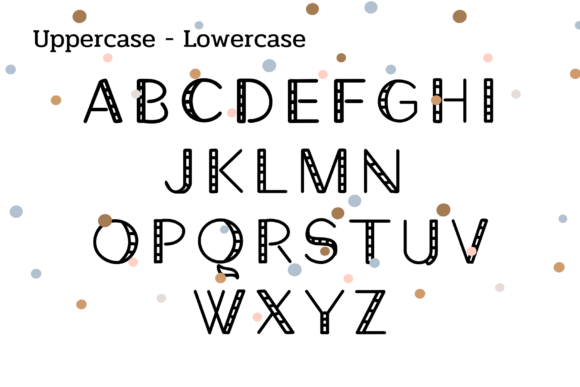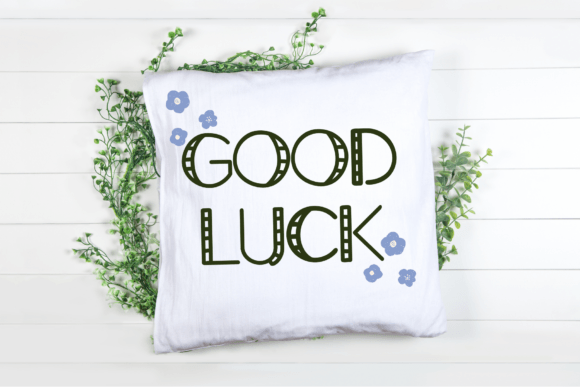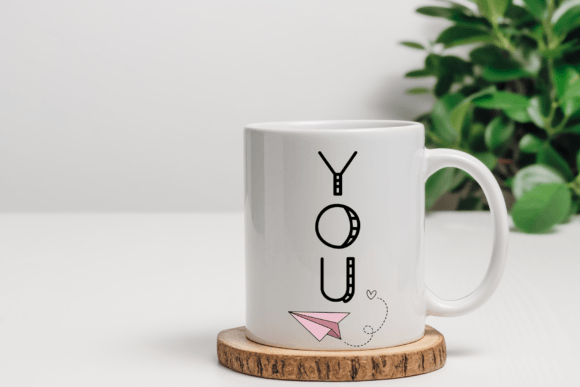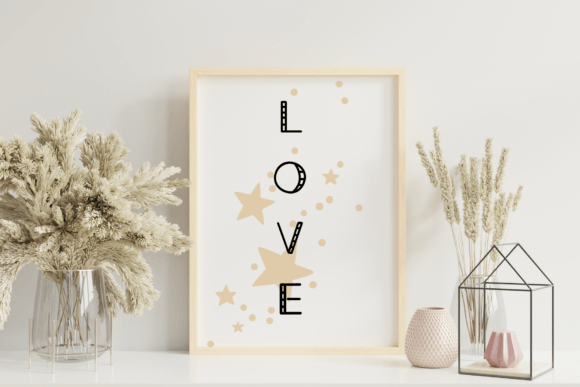
Greeting Font: Add a Warm and Welcoming Touch to Your Designs
Greeting is a playful and friendly display font that has been making waves in the design world. This charming font is perfect for invitations, cards, and any design that needs a warm, welcoming touch. In this article, we’ll dive into the world of Greeting Font and explore its features, uses, and benefits for designers and crafters.
What is Greeting Font?
Greeting Font is a display font designed to bring a sense of warmth and friendliness to your designs. Its playful and approachable style makes it ideal for projects that require a personal touch. Whether you’re creating invitations, greeting cards, or social media graphics, Greeting Font is sure to make your designs stand out.
Key Features of Greeting Font
- Playful and Friendly: Greeting Font has a unique and charming style that’s perfect for designs that need a warm and welcoming touch.
- Display Font: Greeting Font is a display font designed for headlines, titles, and short text passages.
- Highly Readable: Despite its playful style, Greeting Font is highly readable, even at small sizes.
- Versatile: Greeting Font can be used for a wide range of design projects, from invitations and cards to social media graphics and more.
Uses of Greeting Font
Greeting Font is a versatile font that can be used for a variety of design projects. Here are some ideas to get you started:
- Invitations: Use Greeting Font to create custom invitations for weddings, birthday parties, and other special occasions.
- Greeting Cards: Add a personal touch to your greeting cards with Greeting Font.
- Social Media Graphics: Use Greeting Font to create eye-catching social media graphics that are sure to grab attention.
- Signage: Greeting Font can be used for signage, including store signs, event signs, and more.
Benefits of Using Greeting Font
So why choose Greeting Font for your designs? Here are just a few benefits:
- Unique Style: Greeting Font has a unique and charming style that’s sure to make your designs stand out.
- Easy to Read: Despite its playful style, Greeting Font is highly readable, even at small sizes.
- Versatile: Greeting Font can be used for a wide range of design projects.
- Time-Saving: With Greeting Font, you can create professional-looking designs in no time.
Tips for Using Greeting Font
Here are a few tips for using Greeting Font in your designs:
- Use it for Headlines: Greeting Font is perfect for headlines and titles.
- Experiment with Colors: Try pairing Greeting Font with different colors to create a unique look.
- Mix and Match: Combine Greeting Font with other fonts to create a unique look.
- Pay Attention to Size: Make sure to adjust the size of Greeting Font to fit your design.
Greeting Font is a playful and friendly display font that’s perfect for designers and crafters looking to add a warm and welcoming touch to their designs. With its unique style, high readability, and versatility, Greeting Font is sure to become a favorite in your design toolkit. Whether you’re creating invitations, greeting cards, or social media graphics, Greeting Font is the perfect choice.